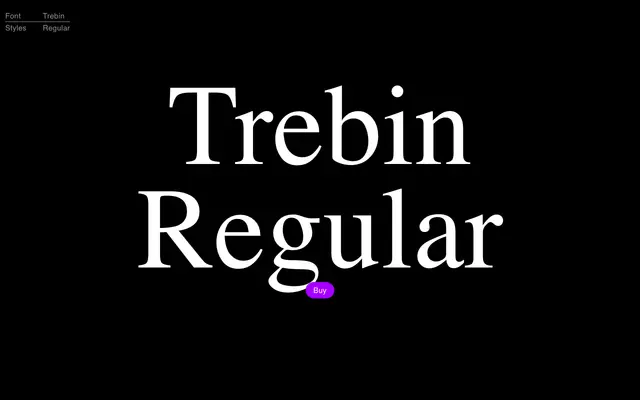
Trebin
A single-weight serif from EPI with a modest Latin character set covering basic Western European glyphs.
Trebin is offered in a single Regular weight, covering the Latin alphabet with umlauts, basic punctuation, figures including fractions and superscripts, and a small set of symbols. The character set addresses German orthography through ß and the standard umlaut vowels. It is a spare, unadorned release with no italic or additional weights.
The glyph set and visual sample suggest a traditional serif construction; without further style variants or explicit classification from the foundry, transitional serif is the most plausible reading from the letter forms shown.